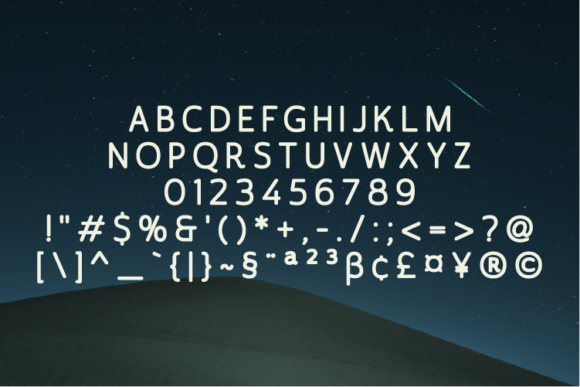
Introducing Argodame Bold Font: The Friendly and Expressive Typeface for Modern Design
In the world of typography, fonts play a crucial role in conveying the tone and personality of a brand, product, or message. For designers and crafters, finding the perfect typeface can be a daunting task, especially when it comes to creating visually appealing headlines, logotypes, and branding materials. This is where Argodame Bold Font comes in – a rounded sans serif font that is sure to capture your attention with its friendly and expressive look.
The Characteristics of Argodame Bold Font
Argodame is a modern and contemporary typeface that boasts soft terminals, giving it a unique and approachable feel. Its classic proportions make it an excellent choice for a wide range of design applications, from headlines and logotypes to branding, books, magazines, and motion graphics. The font’s rounded edges and smooth curves create a sense of warmth and approachability, making it perfect for designers who want to add a touch of personality to their work.
What Makes Argodame Bold Font Stand Out?
So, what sets Argodame apart from other fonts on the market? Here are a few key features that make it an excellent choice for designers and crafters:
- Unique and Friendly Look: Argodame’s soft terminals and rounded edges give it a distinctive and approachable feel that is sure to capture your audience’s attention.
- Modern and Contemporary Style: The font’s modern and contemporary style makes it perfect for designers who want to create visually appealing and trendy designs.
- Classic Proportions: Argodame’s classic proportions ensure that it remains legible and readable, even at smaller font sizes.
- Versatility: The font’s versatility makes it suitable for a wide range of design applications, from print to digital media.
Use Cases for Argodame Bold Font
Argodame Bold Font is an incredibly versatile typeface that can be used in a variety of design applications, including:
- Headlines and Titles: The font’s bold and expressive style makes it perfect for creating eye-catching headlines and titles.
- Logotypes and Branding: Argodame’s unique and friendly look makes it an excellent choice for creating memorable logotypes and branding materials.
- Books and Magazines: The font’s classic proportions and readability make it suitable for use in books and magazines.
- Motion Graphics: Argodame’s modern and contemporary style makes it perfect for use in motion graphics and animation.
Tips for Using Argodame Bold Font
To get the most out of Argodame Bold Font, here are a few tips to keep in mind:
- Experiment with Font Sizes: Argodame’s versatility means that it can be used at a range of font sizes, from large headlines to smaller body text.
- Pair with Other Fonts: The font’s classic proportions make it easy to pair with other fonts, creating a unique and visually appealing typography combination.
- Use in Combination with Images: Argodame’s friendly and expressive look makes it perfect for use in combination with images, creating a compelling and engaging visual narrative.
Argodame Bold Font is a unique and versatile typeface that is sure to capture your attention with its friendly and expressive look. Its modern and contemporary style, combined with its classic proportions, make it an excellent choice for a wide range of design applications. Whether you’re a designer, crafter, or simply someone who appreciates great typography, Argodame Bold Font is definitely worth checking out.